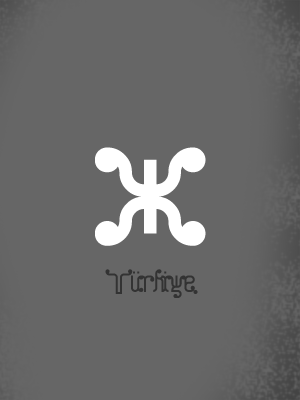
Turk and Nusa
I made this for my Turk friend. But, i know this is not good enough :( sorry
Ball Terminals
awesome! very fancy work
Some interesting characters here. Did your Turkish friend like it?
This design is so beautiful! Clearly made with love and joy.
A lot of Fonts that are used for packaging or ads aren't all that good. But the important thing is to learn and to have fun!
this is so cool. Love those uppercase